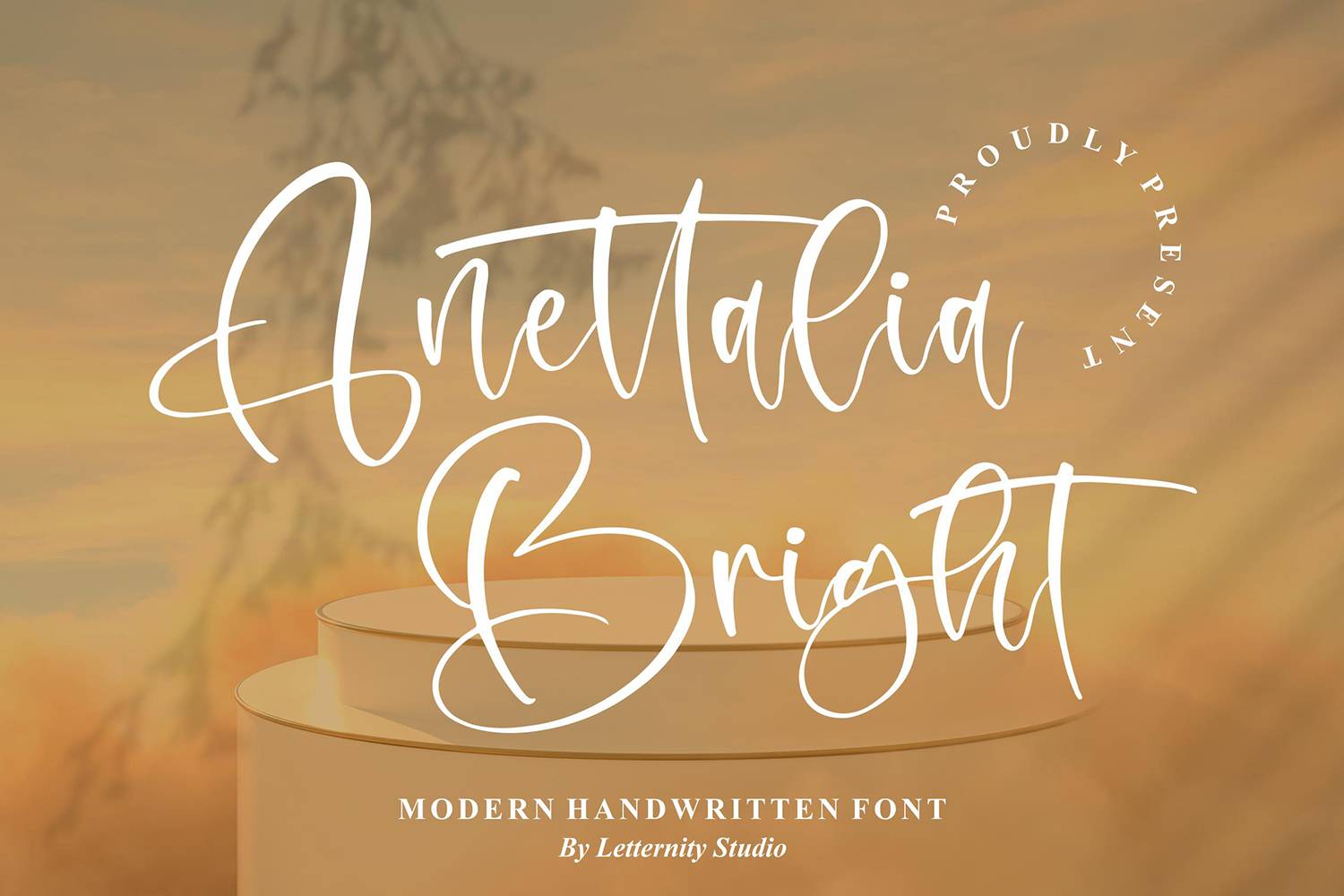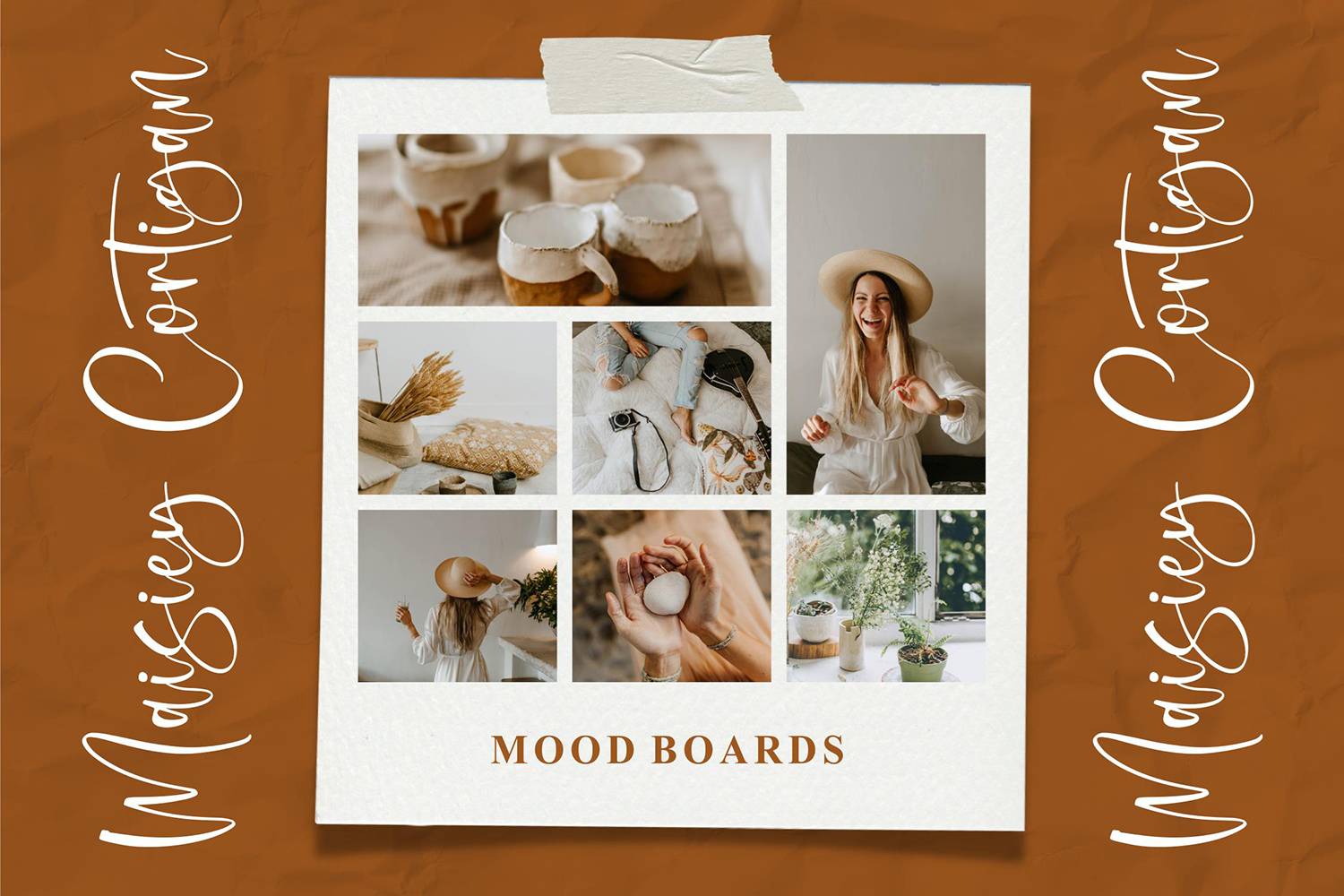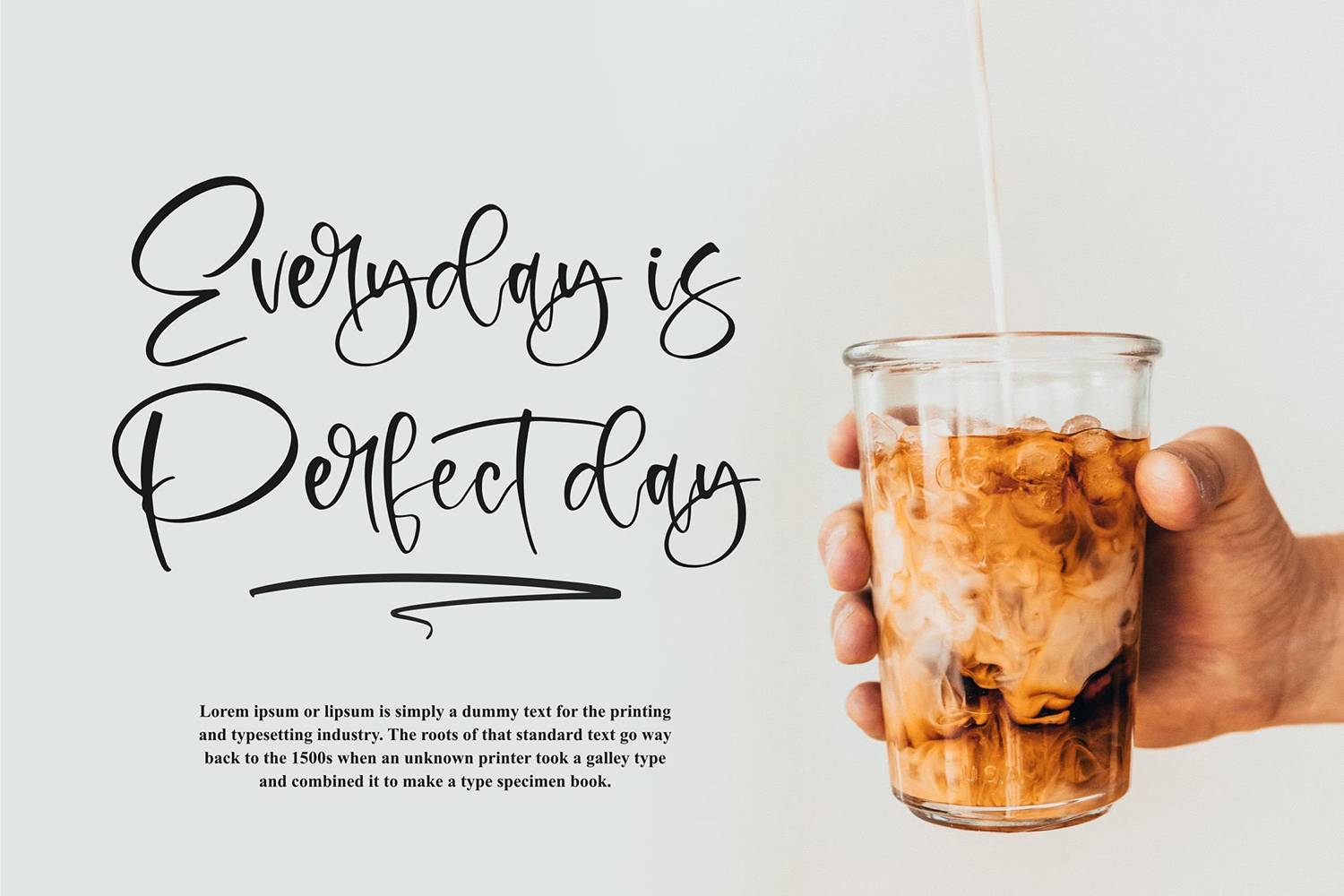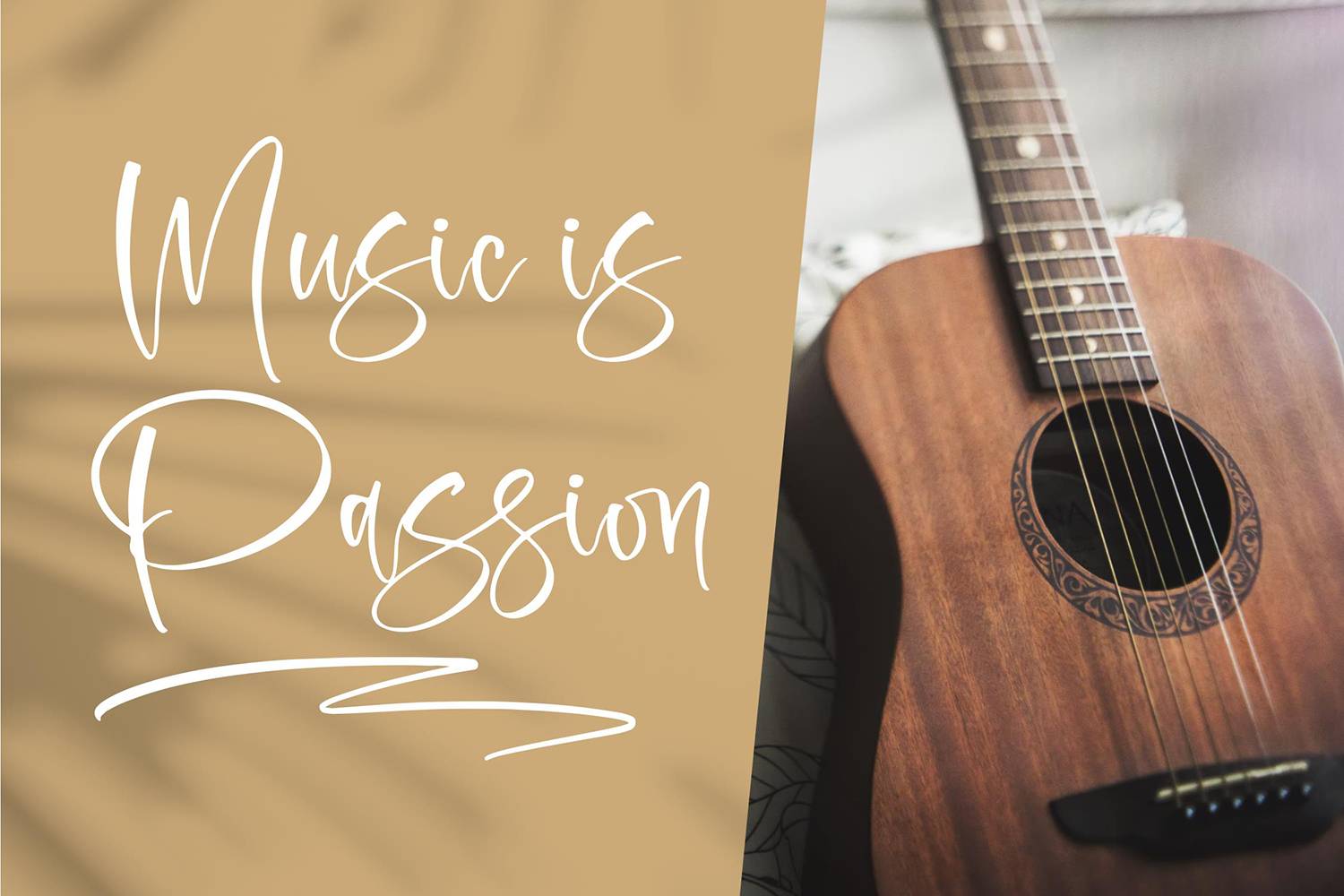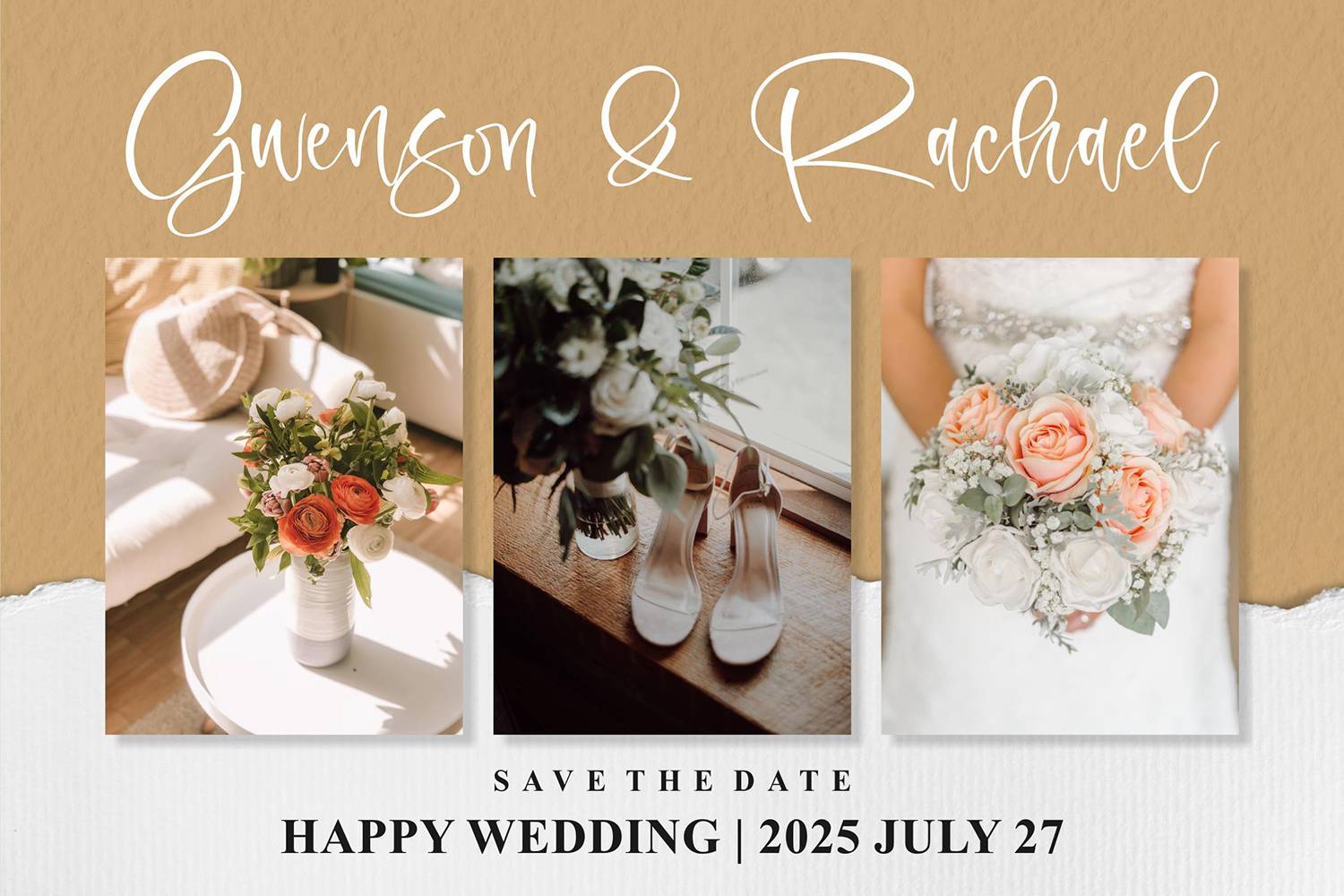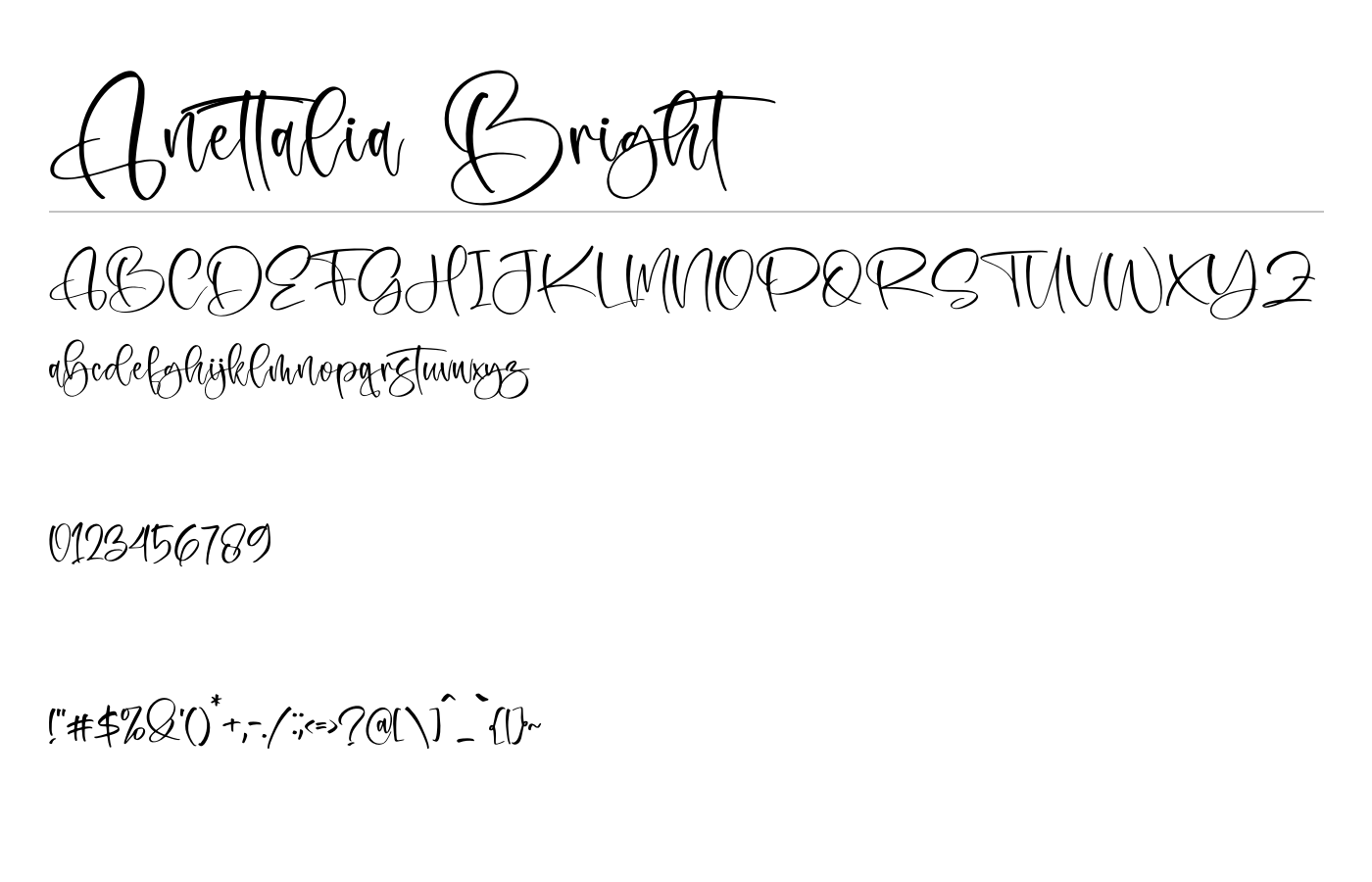
Anettalia Bright is a delicate, handwritten script font characterized by its elegant, flowing strokes and playful loops. It features a light weight with a high x-height impression, giving it a graceful and airy feel perfect for feminine, creative, and personal branding projects. This font works wonderfully for invitations, logos, and editorial designs where a stylish, modern, and charming touch is desired.
Anettalia Bright Font
About Anettalia Bright Font